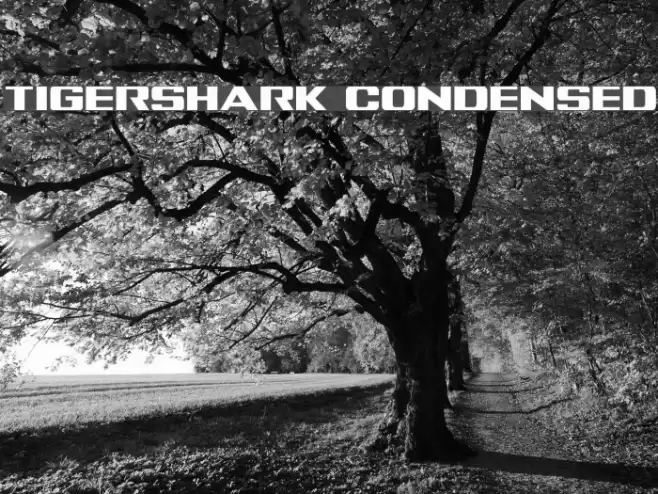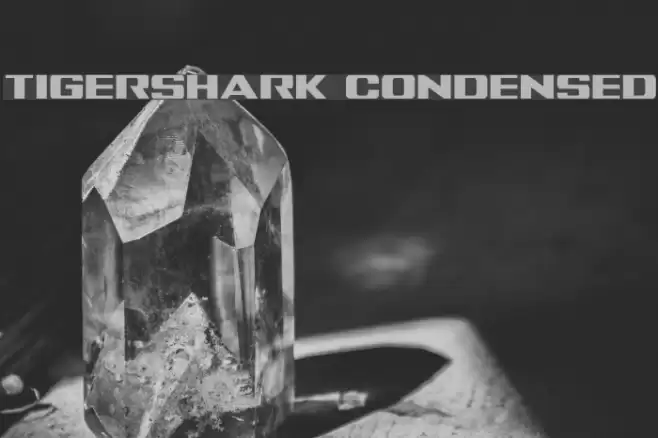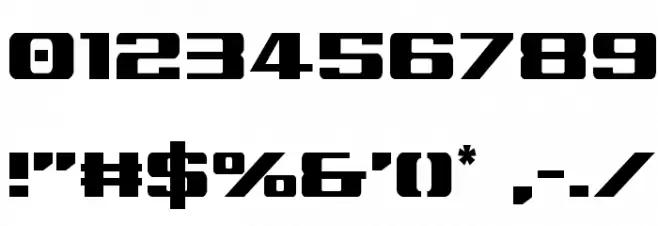
Tigershark Condensed Font
Tigershark Condensed Description
This font features a bold, condensed style with a strong geometric influence. The characters are blocky and robust, with sharp angles and a uniform thickness that gives them a powerful presence. The uppercase letters are particularly striking, with a consistent height and width that creates a cohesive look. The numerals and special characters maintain this boldness, ensuring readability and impact. The font's design is modern and assertive, making it suitable for projects that require a strong visual statement.
A bold, condensed font with a geometric and modern style from Uncategorized fonts.
- Proposed Projects: Ideal for branding, posters, headlines, and any design requiring a bold statement.